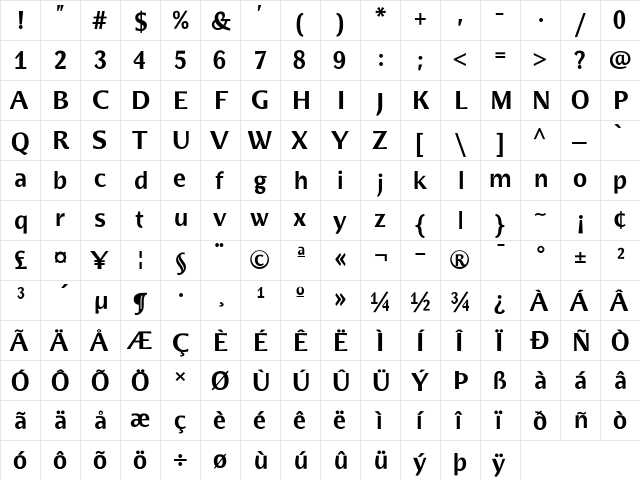
BradloSans Regular
Design Context for BradloSans Typeface
BradloSans is a composed and adaptable typeface that performs quietly and consistently across a wide range of design contexts.